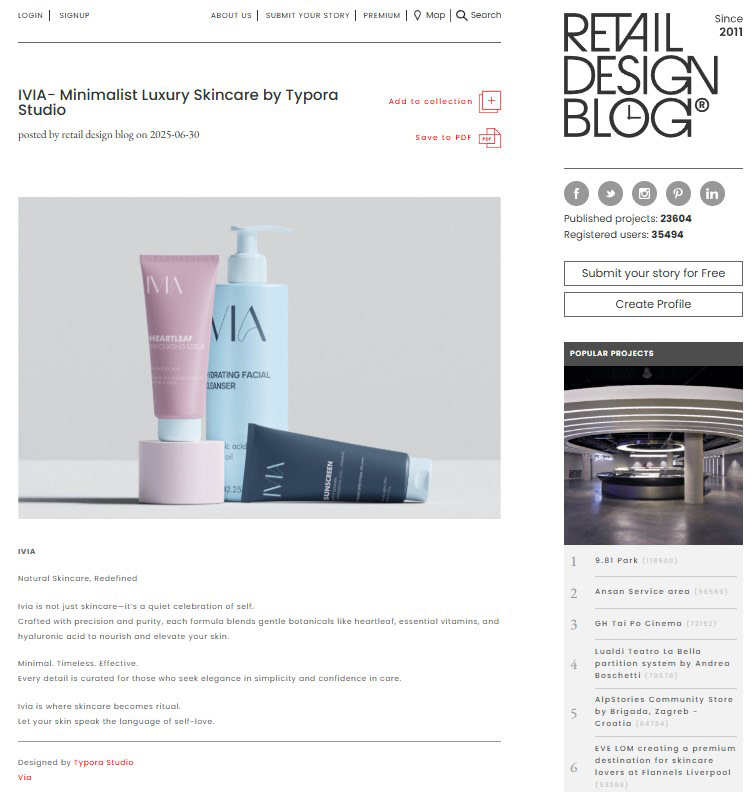
IVIA – Minimalist Skincare Branding
Our work for IVIA, a luxury minimalist skincare brand, was proudly featured on Retail Design Blog, a leading global platform showcasing the best in retail and product design.
IVIA is more than skincare — it's a quiet celebration of self. Our creative direction focused on translating purity, elegance, and ritual into visual form. From the calming pastel palette to the clean, type-driven packaging, every design choice was made to reflect the brand's core values: minimalism, effectiveness, and self-care.
The result? A premium brand identity that feels both modern and timeless, capturing the essence of confidence through simplicity.